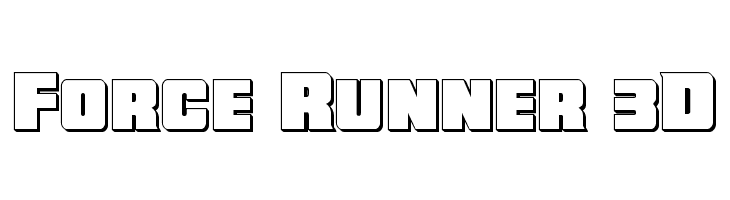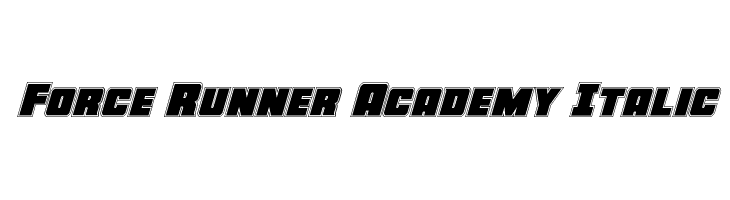
A modern, geometric font with a futuristic and technical design.
A bold, geometric font with strong, uniform strokes and high contrast.
A bold, 3D font with a modern, impactful design.
A bold, 3D italic font with a futuristic and dynamic style.
A bold, blocky font with a strong, outlined design.
A bold, italicized font with a dynamic, sporty style.
A bold, condensed font with a strong, geometric design.
A bold, condensed, and italic font with a dynamic and energetic style.
A bold, expanded font with a strong, modern presence.
A bold, expanded, and italic font with a modern, dynamic style.